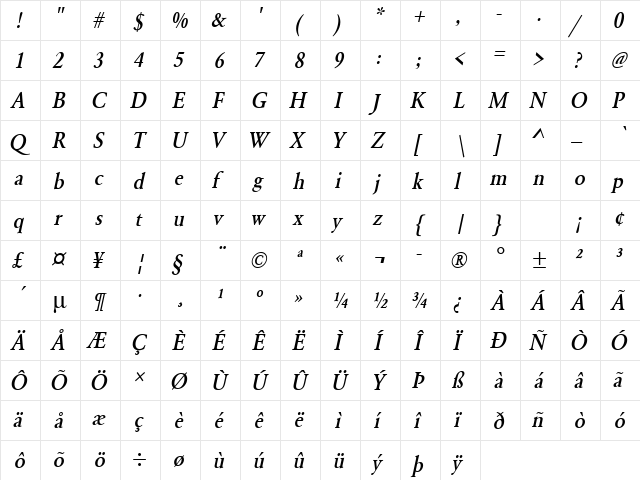
URWGaramondTMedExtNar Oblique
Design Context for URWGaramondTMedExtNar Typeface
URWGaramondTMedExtNar offers clean, dependable letterforms without strong stylistic allegiance, making it a practical choice for designers who need flexibility. Its italic angle brings a sense of urgency and motion to the letterforms.
Pro Tip: Try URWGaramondTMedExtNar for annotation and caption copy alongside an upright companion — the contrast in angle creates a dynamic but ordered typographic system.